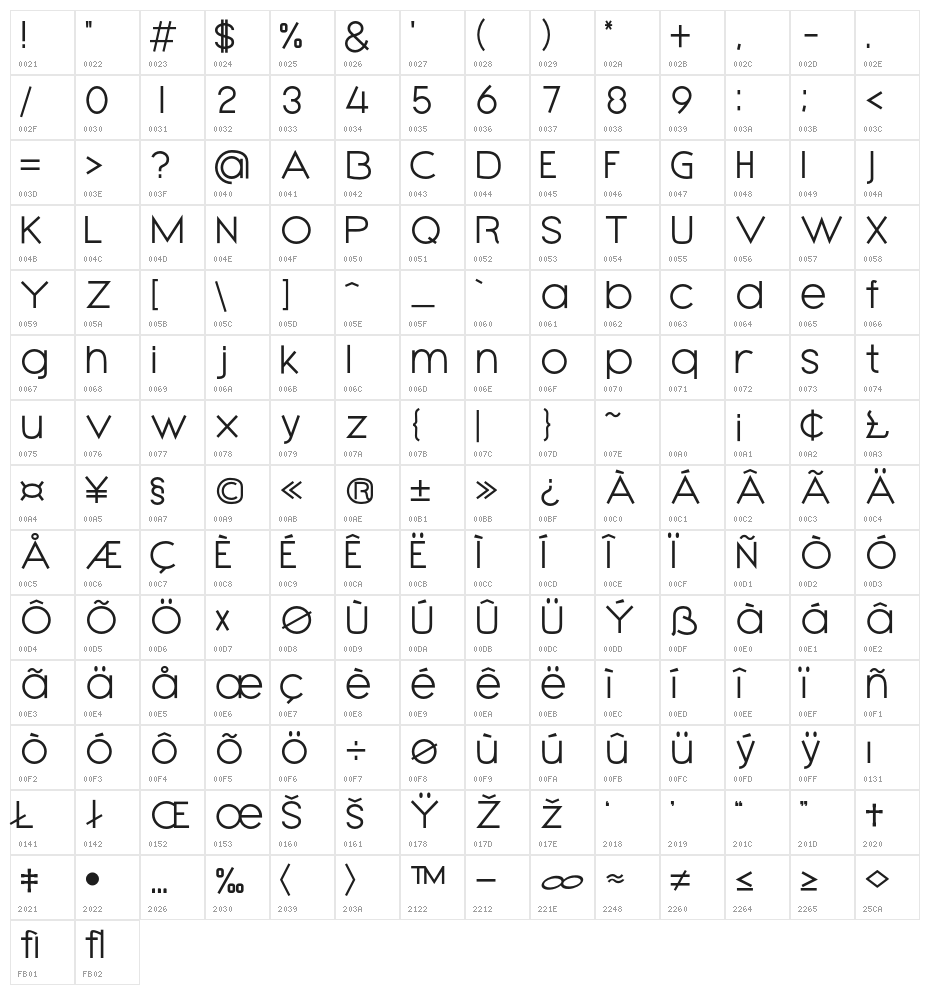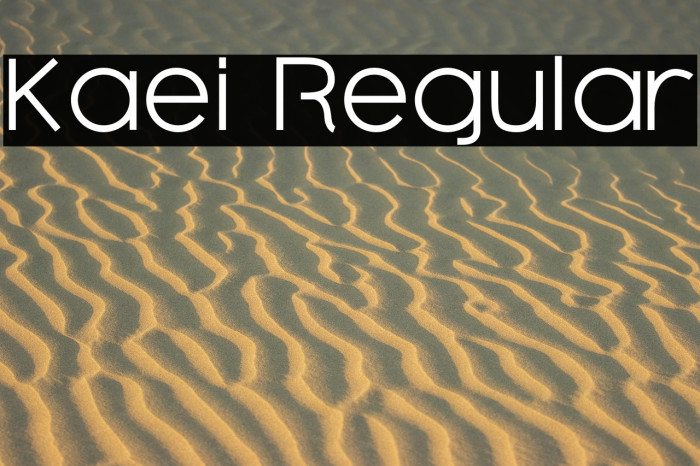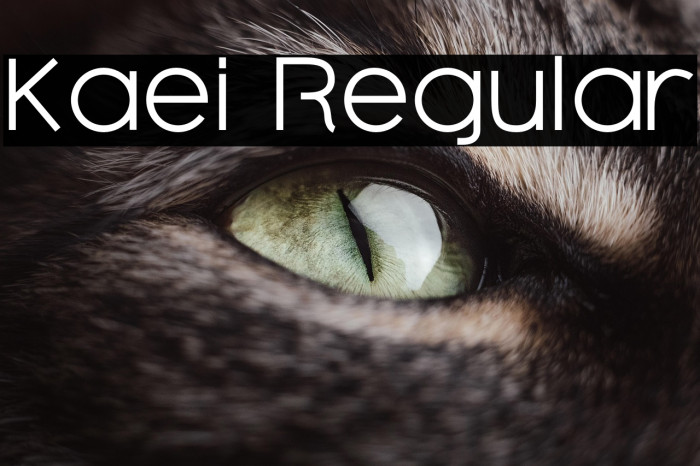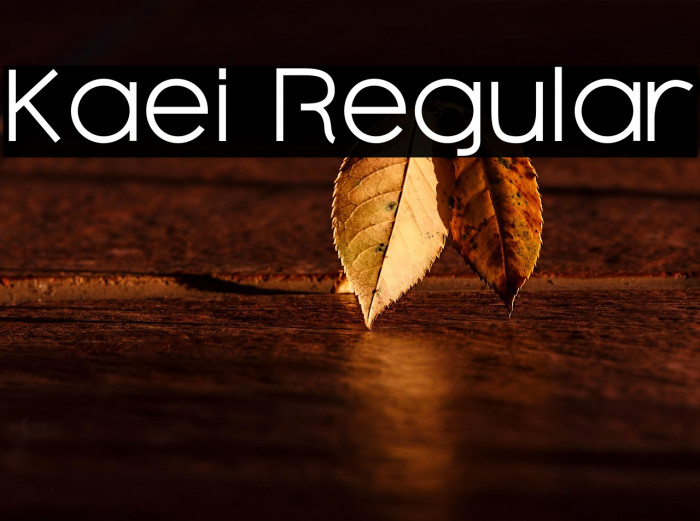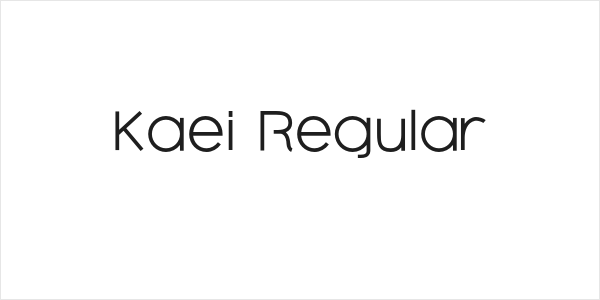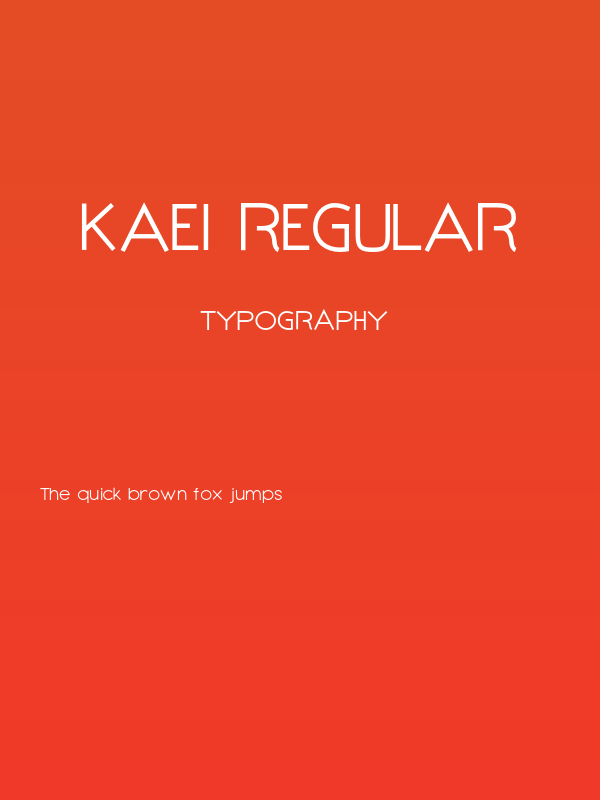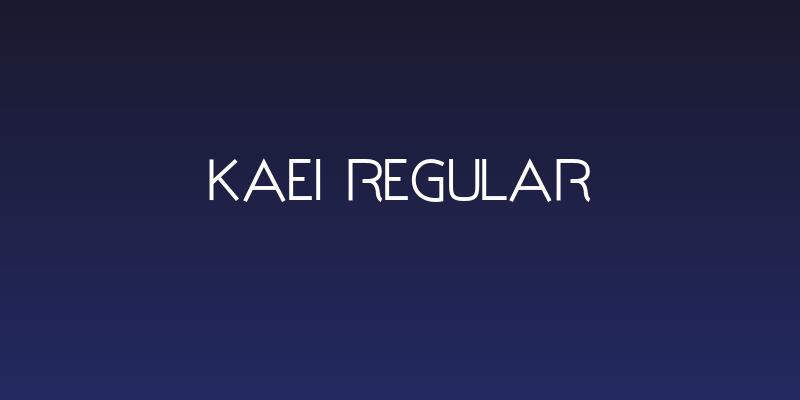
Kaei Regular Font
Kaei Regular Description
This font exhibits a clean, geometric sans-serif style with a modern aesthetic. The characters are well-proportioned, featuring consistent stroke widths that contribute to a uniform appearance. The uppercase letters are bold and assertive, while the lowercase letters maintain a softer, more approachable feel. The numerals are clear and easily distinguishable, making them suitable for various applications. Special characters are designed with the same attention to detail, ensuring they blend seamlessly with the rest of the typeface. Overall, this font conveys a sense of simplicity and elegance, making it versatile for numerous design projects.
| Use Case | Headlines, Body text, Logos |
| Proposed Projects | Ideal for branding, advertising, web design, and editorial layouts. |